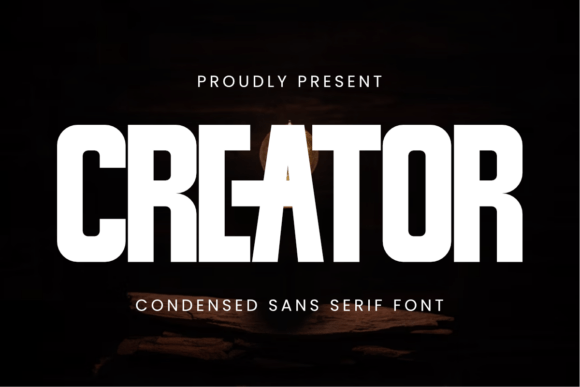
Introduction to Creator Font
Creator is a condensed sans serif font with bold, wide, and impactful letterforms.
Designed to make your text stand out, this typeface is perfect for headlines, posters, branding, logos, sports designs, editorial layouts, advertising, and modern projects Its geometric structure and strong presence make it ideal for creating professional and eye-catching typography.